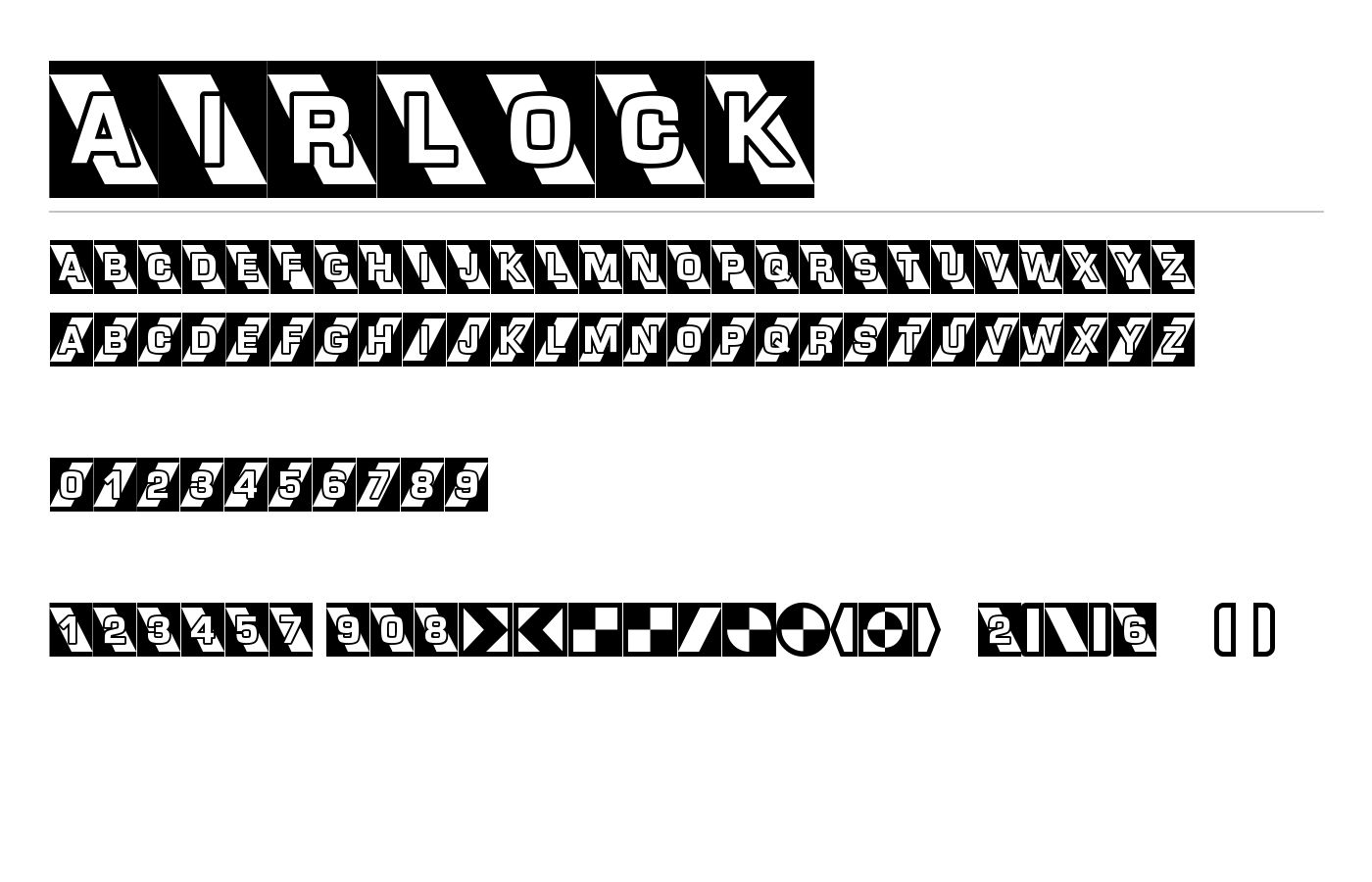
AIRLOCK is a bold and modern sans serif display font characterized by its strong geometric shapes and striking three-dimensional shadow effect. Its uppercase letters and numbers have a condensed, sturdy appearance with sharp edges that convey a sense of industrial precision and futuristic style. This font is ideal for attention-grabbing headlines, logos, and branding that seek a dynamic, high-impact look with a retro-futuristic vibe.
AIRLOCK Font